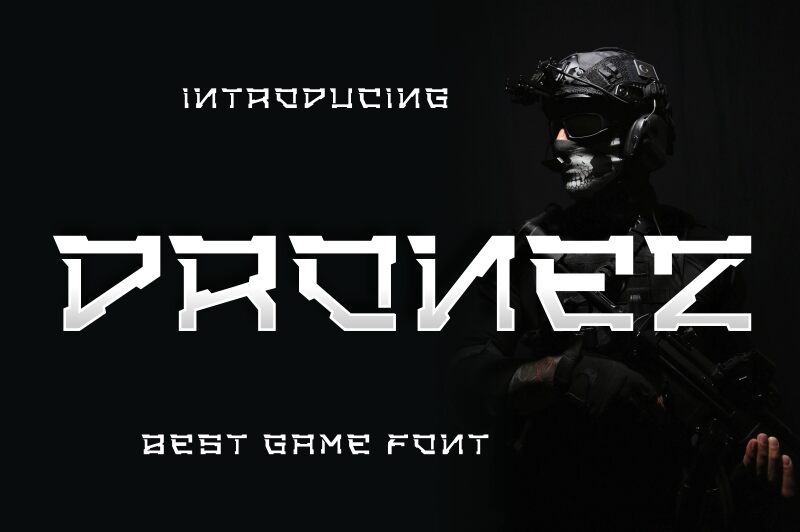
The Dronez Font, created by Ari Wibowo, is a display typeface perfect for futuristic and techno projects. With its semi-light weight and expanded width, it captures the essence of modernity with a touch of edginess. This font is ideal for branding designs, sci-fi posters, and technology-related websites. Its sleek aesthetics make it a great choice for video game titles or even fashion industry promotions. Stand out from the crowd with Dronez Font's unique style that embodies the future. Upgrade your design game and give your project an innovative look with this one-of-a-kind font!